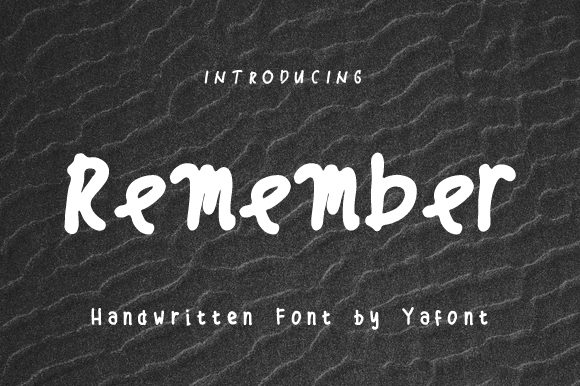
Remember
About Remember Font
Remember is a quirky and cute handwritten font. Friendly and natural, this font will become your favorite choice in no time!